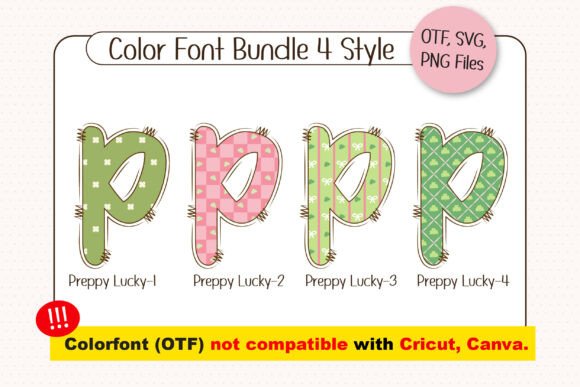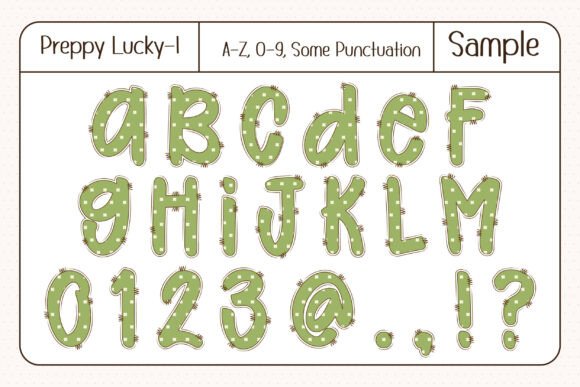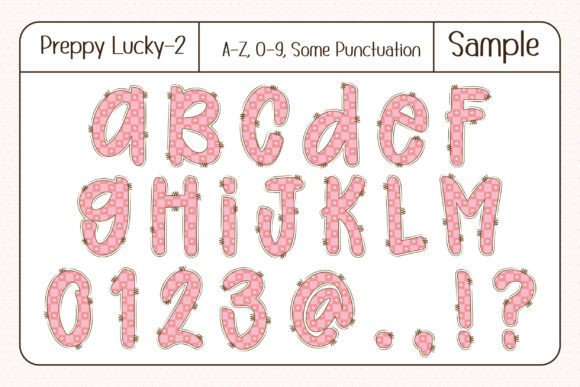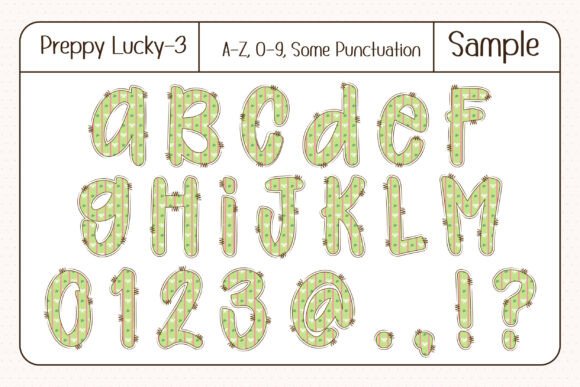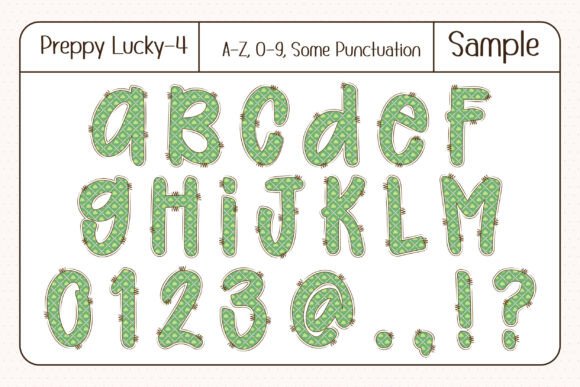
Introduction to Preppy Lucky Font
Preppy Lucky is a charming St.
Patrickโs Day color font featuring a cute preppy style with soft pastel green and pink tones Step into a world of colorful patchwork and holiday cheer with the Preppy Lucky font.
Key Features of Preppy Lucky Font